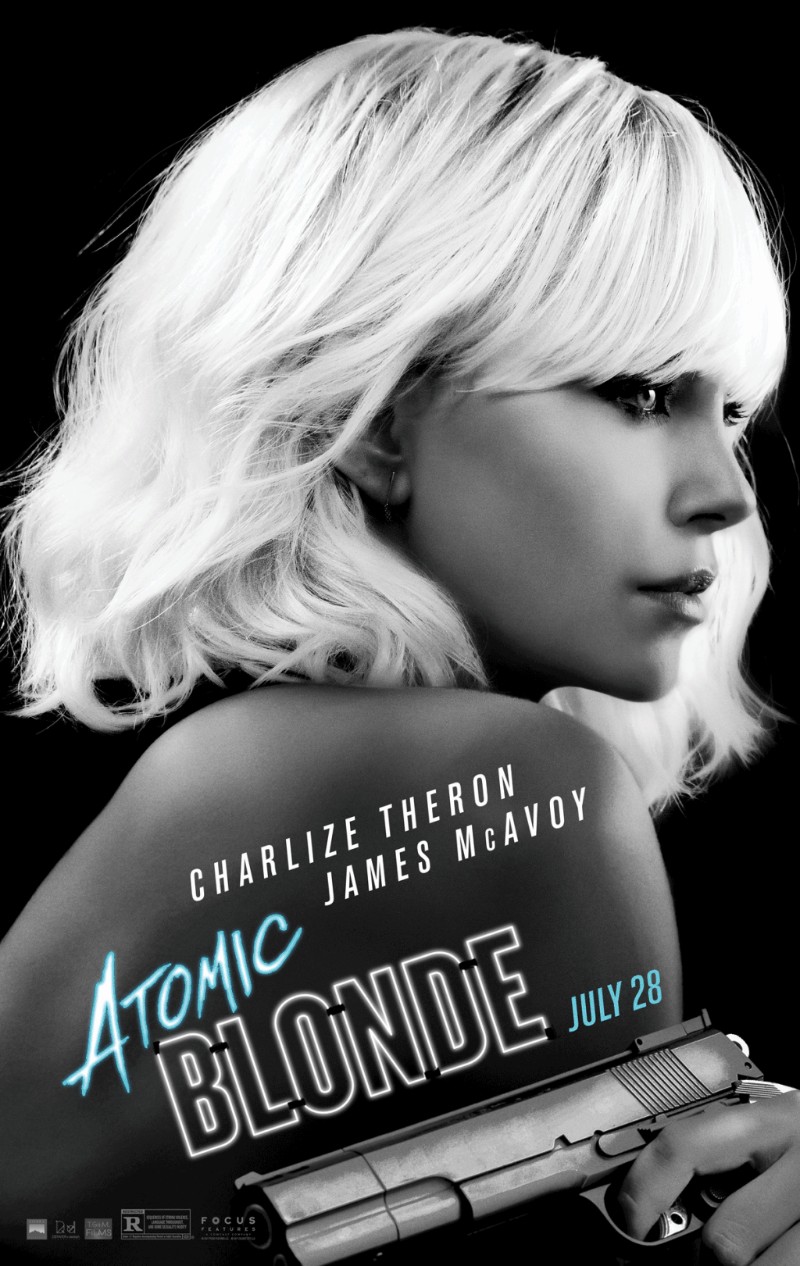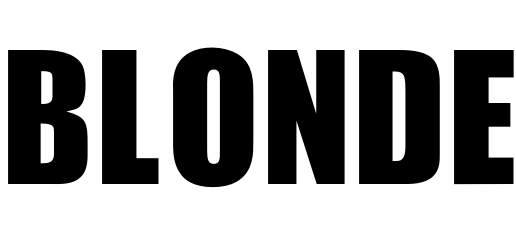
Atomic Blonde Font
Fonts in UseAtomic Blonde is a 2017 action thriller film directed by David Leitch. It follows a British MI6 agent, played by Charlize Theron, who is sent to Berlin during the Cold War to investigate the murder of a fellow agent and retrieve a missing list of double agents.
The film title's "Blonde" part bears resemblance to fonts like Gobold Hollow Bold or Ignite (without the outline effect), while the "Atomic" part is similar to the font Againts by Ramandhani Nugraha. These fonts are available for free download in the Fonts Used Section